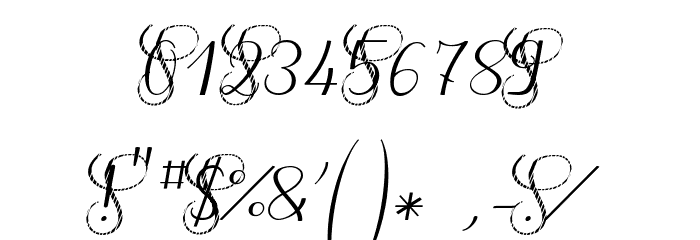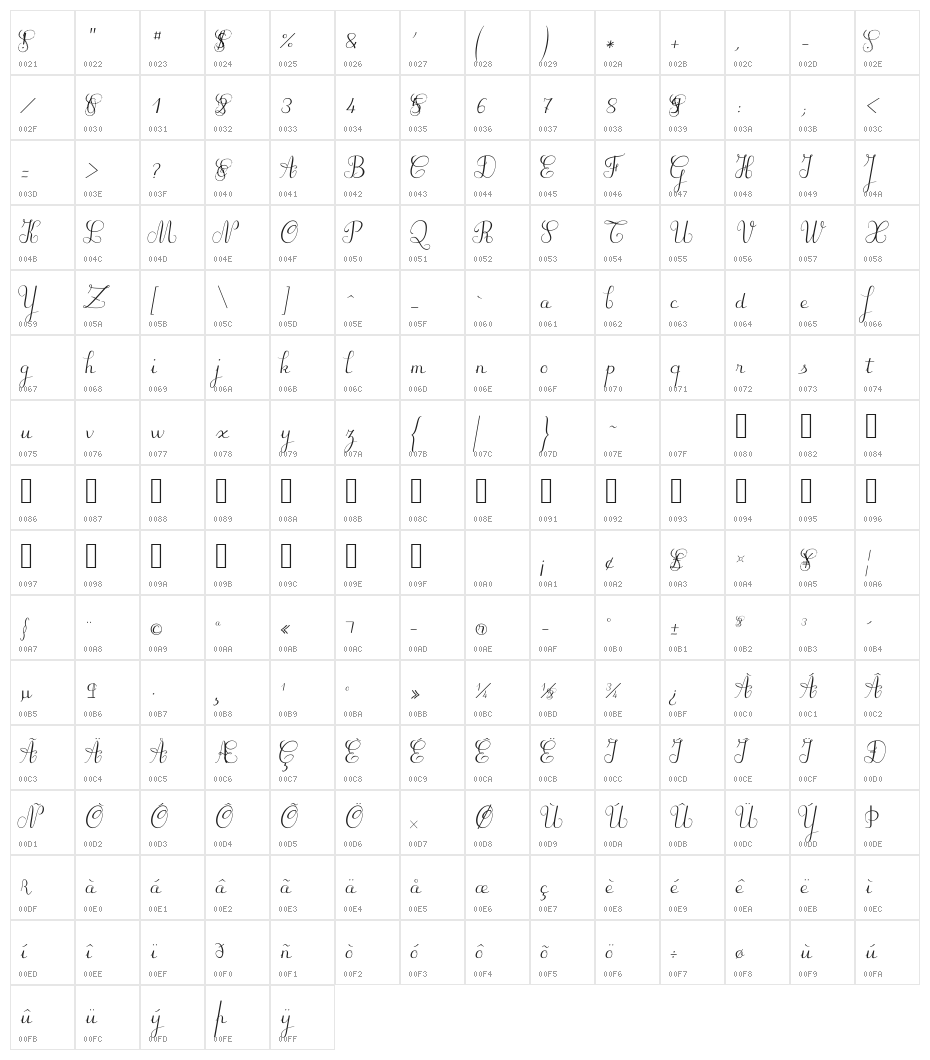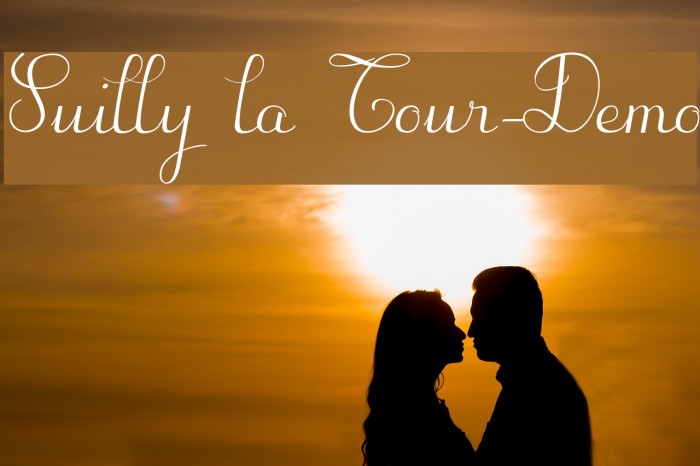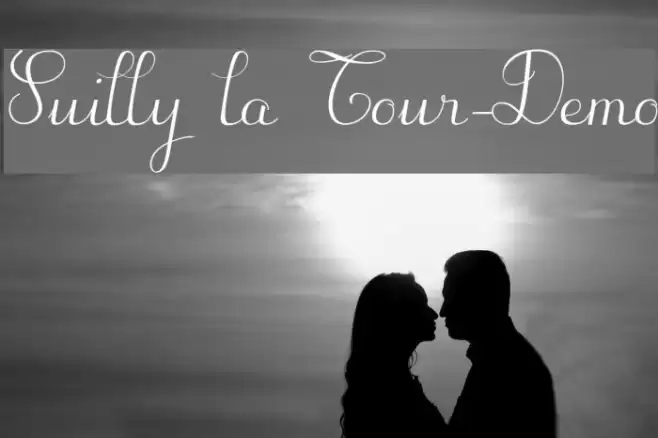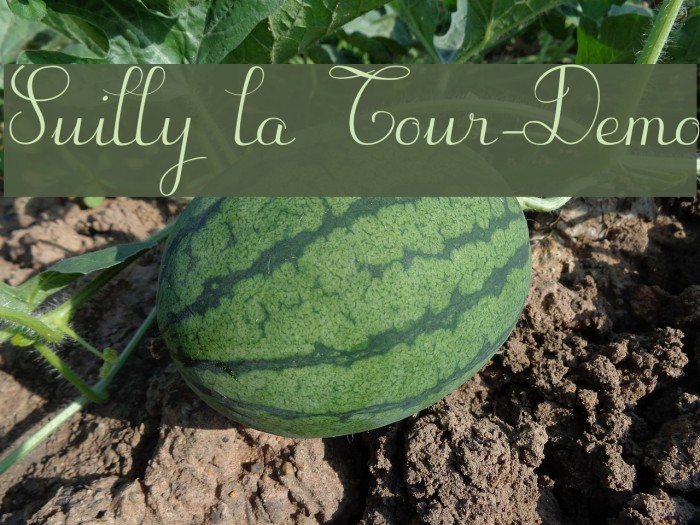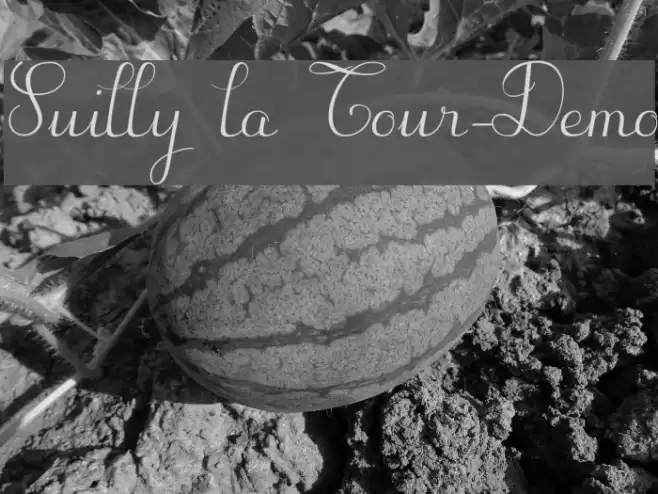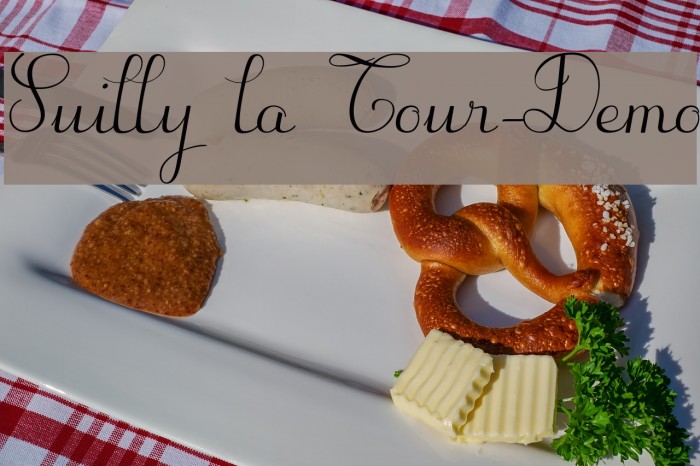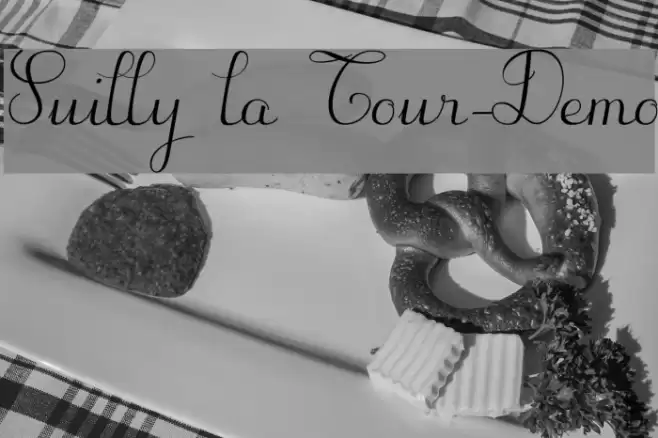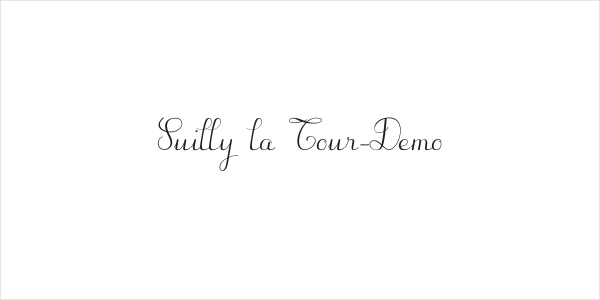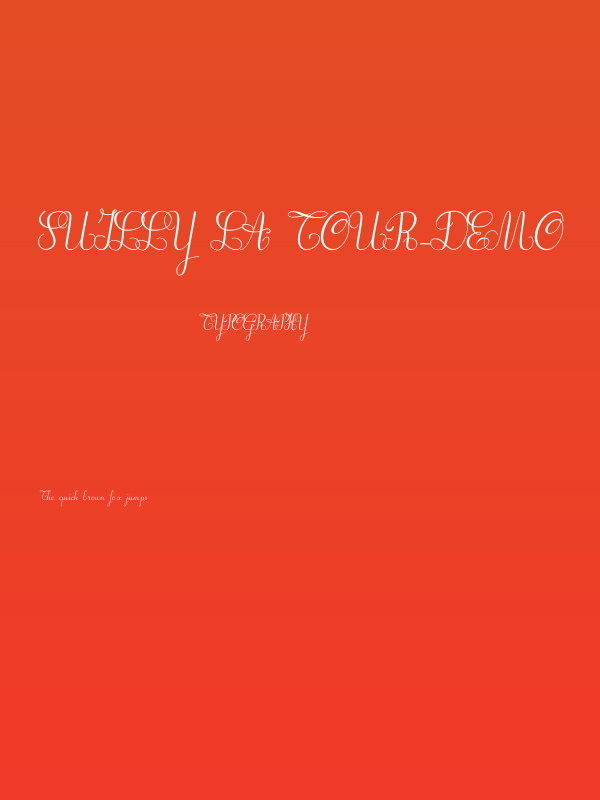
Suilly la Tour-Demo Font
Suilly la Tour-Demo Description
This elegant script font features intricate, flowing lines and elaborate swashes, giving it a highly decorative and sophisticated appearance. The uppercase letters are particularly ornate, with extended flourishes that add a sense of grandeur and elegance. The lowercase letters maintain a consistent style, with gentle curves and loops that create a harmonious flow. The numerals are equally stylized, matching the overall decorative theme. This font is perfect for projects that require a touch of luxury and refinement, such as wedding invitations, high-end branding, or elegant packaging. Its intricate design demands attention, making it ideal for headlines or display purposes where its beauty can be fully appreciated.
Use CaseHeadlines, Logos, Invitations
Proposed ProjectsWedding invitations, luxury branding, elegant packaging, decorative headlines.